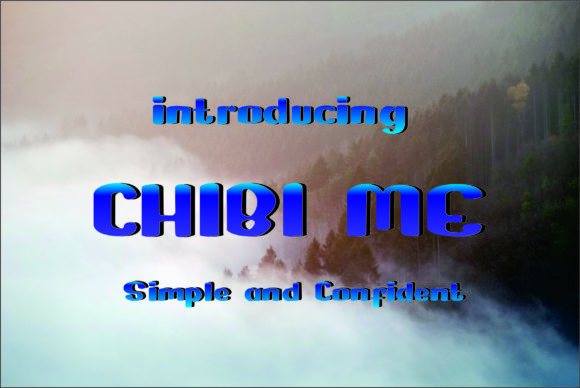
Journey into the realm of charm and allure with Chibi Me Font, a captivating sans serif typeface that weaves magic into your digital creations. Inspired by the allure of anime and manga, Chibi Me Font captivates with its playful curves and innocent charm. Each letter dances across the screen, imbued with a sense of childlike wonder and whimsy.
Immerse yourself in a world where cuteness reigns supreme and imagination knows no bounds. Chibi Me Font transforms your designs into captivating works of art, injecting a touch of enchantment into every project. Its versatile nature makes it the perfect choice for a myriad of applications, from whimsical logos and enchanting posters to eye-catching social media posts and captivating website designs.
With Chibi Me Font, you hold the key to unlocking a universe of charm and delight. Its playful spirit brings life to your designs, evoking a sense of nostalgia and wonder. Let Chibi Me Font be your muse as you craft enchanting invitations, captivating branding materials, and heartfelt greeting cards that leave a lasting impression.
Chibi Me Font is meticulously crafted to evoke a sense of playfulness and joy. Its smooth, rounded edges and delicate strokes create a welcoming ambiance, inviting your readers to embark on a delightful visual adventure. Whether you're a seasoned designer or just starting your creative journey, Chibi Me Font is the perfect companion, guiding you towards captivating designs that speak volumes.
So, embrace the magic of Chibi Me Font and let your imagination soar. Its boundless versatility and captivating charm will transform your creative endeavors into extraordinary expressions of art. Dive into a world of enchantment and whimsy, where Chibi Me Font reigns supreme.